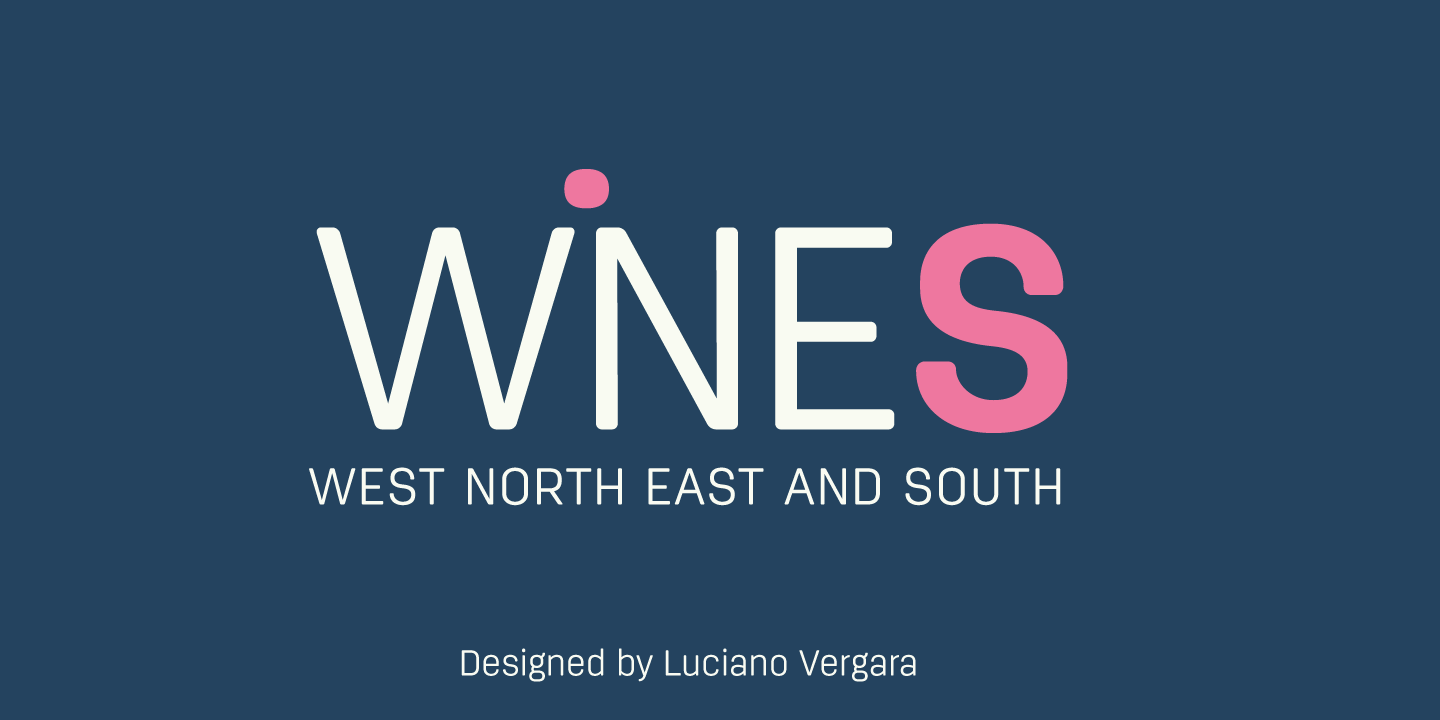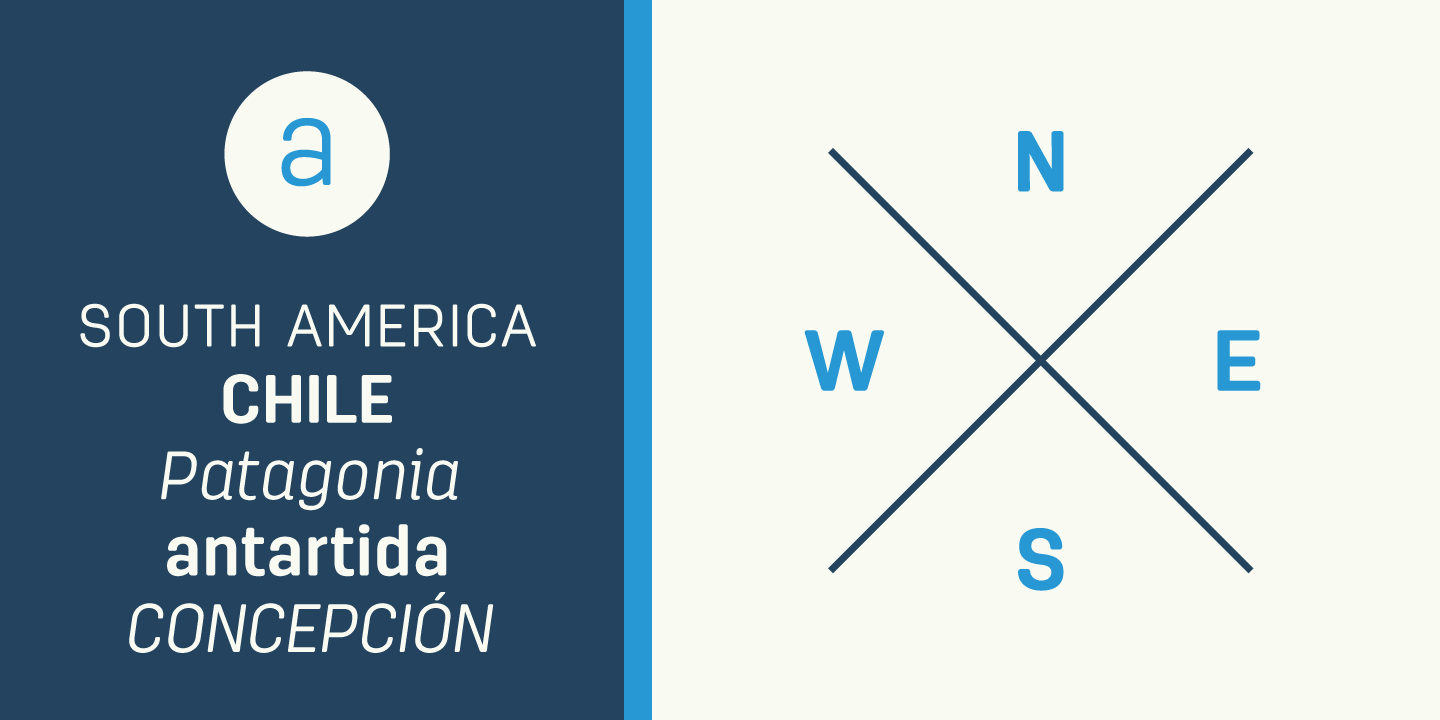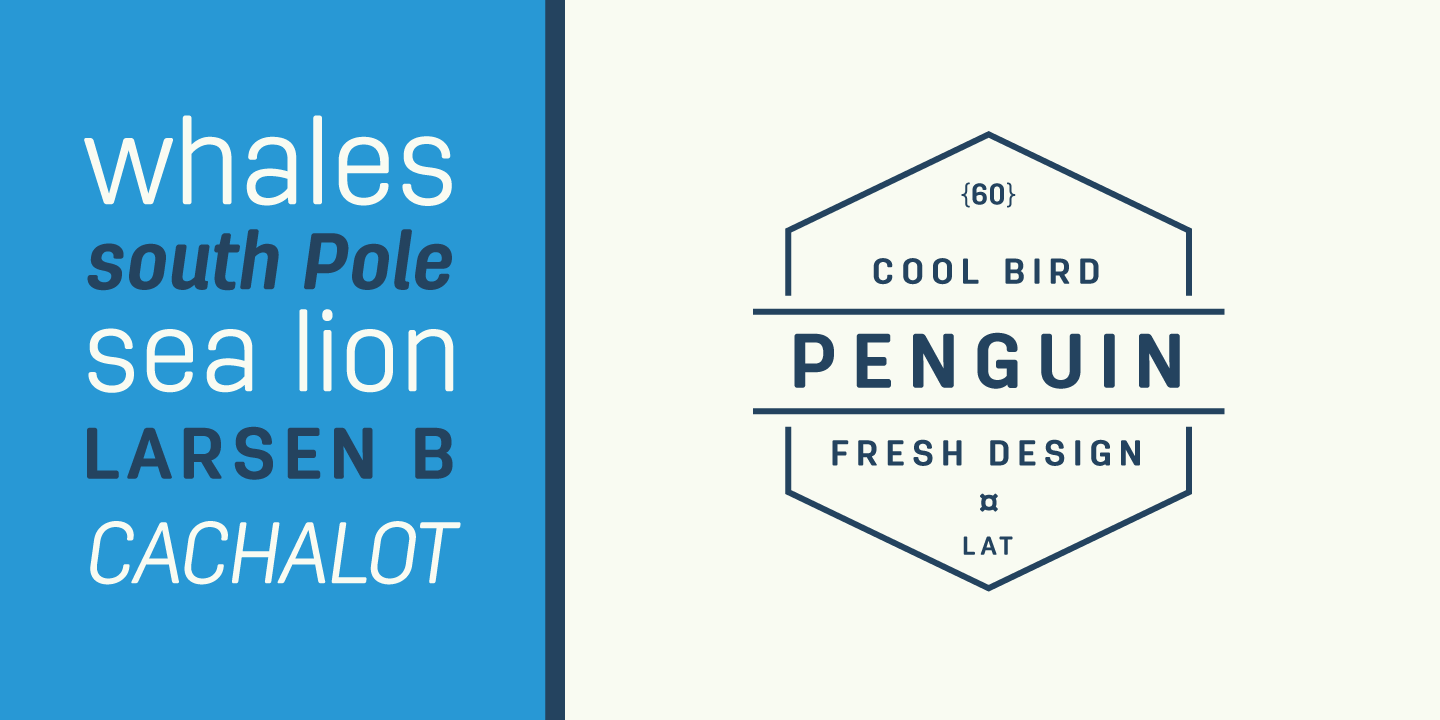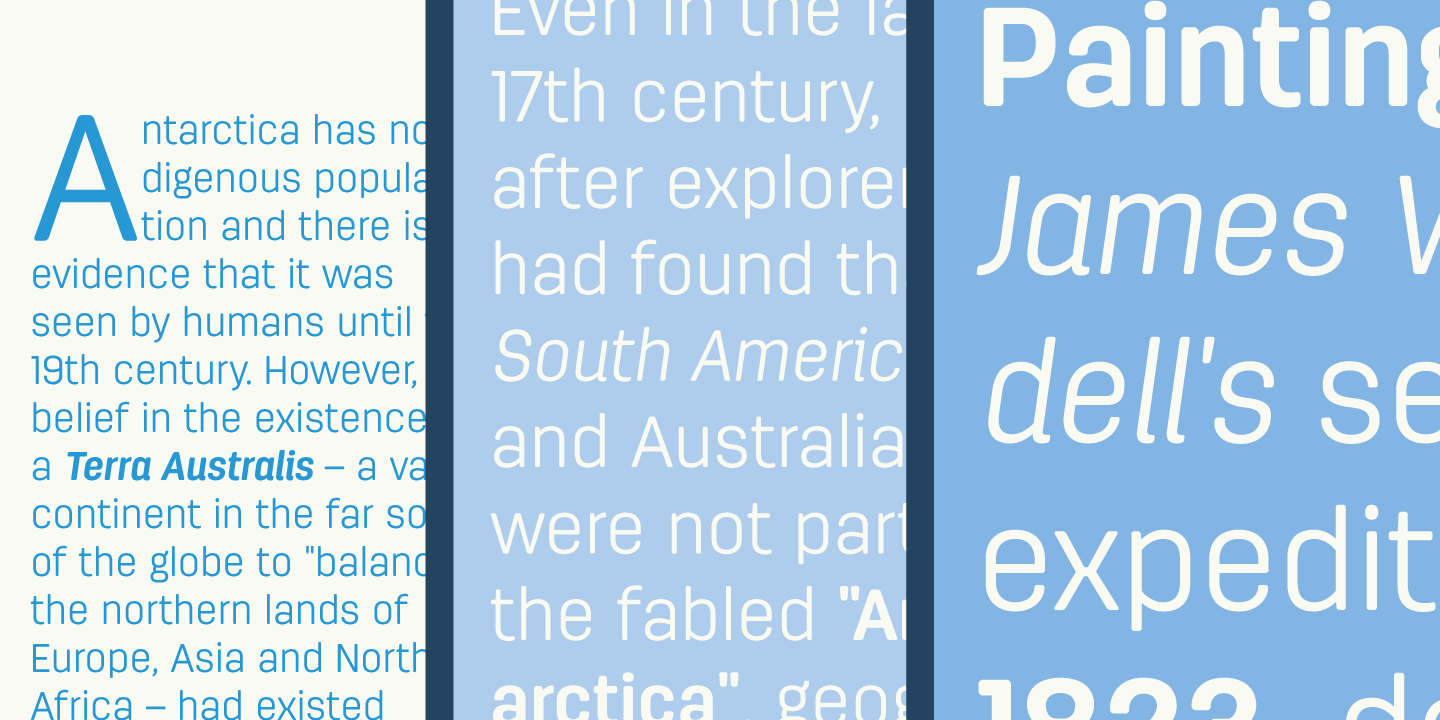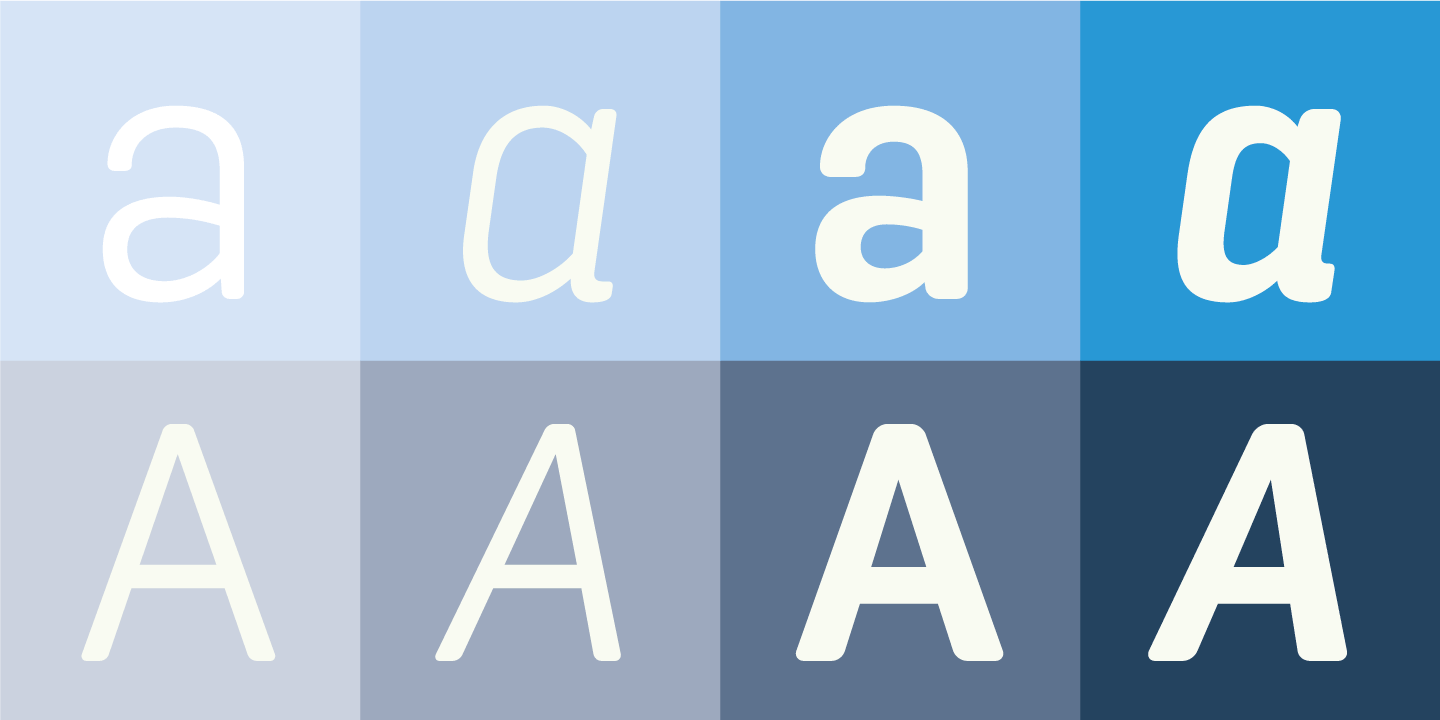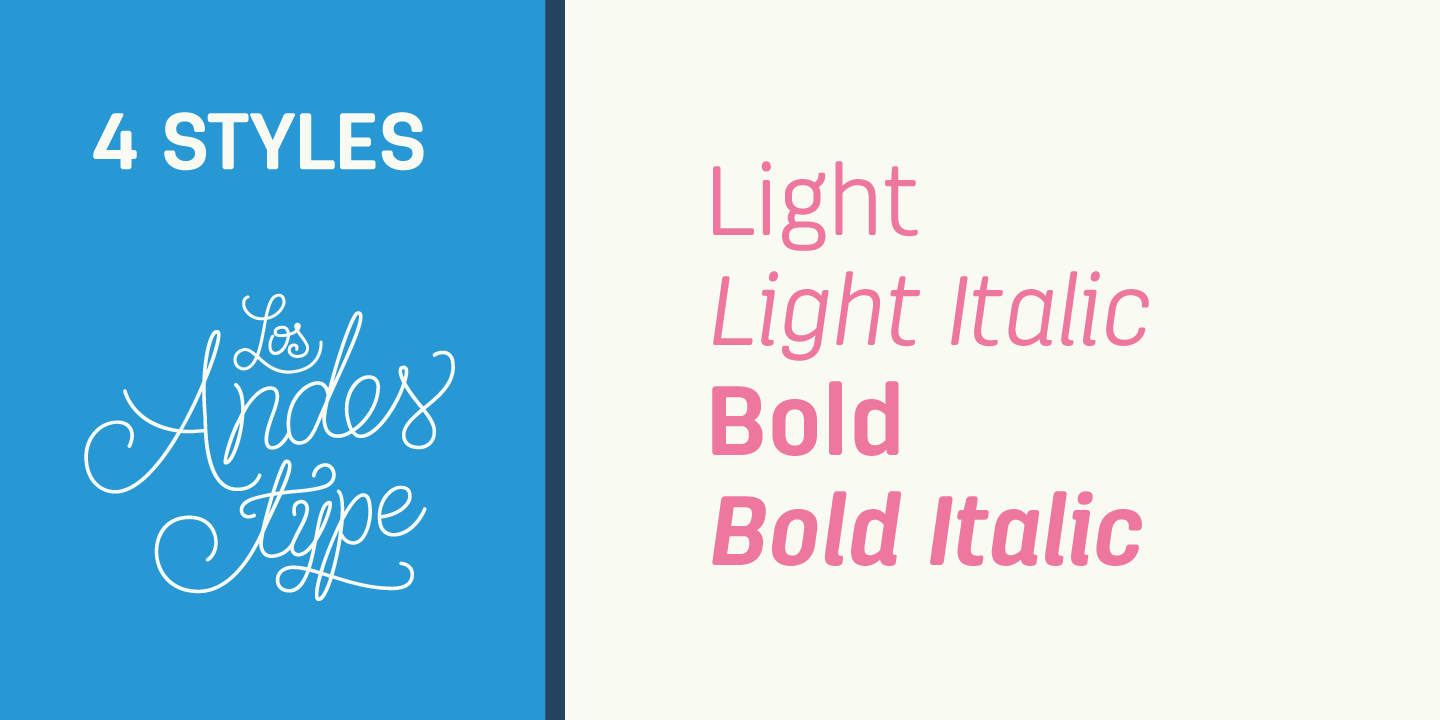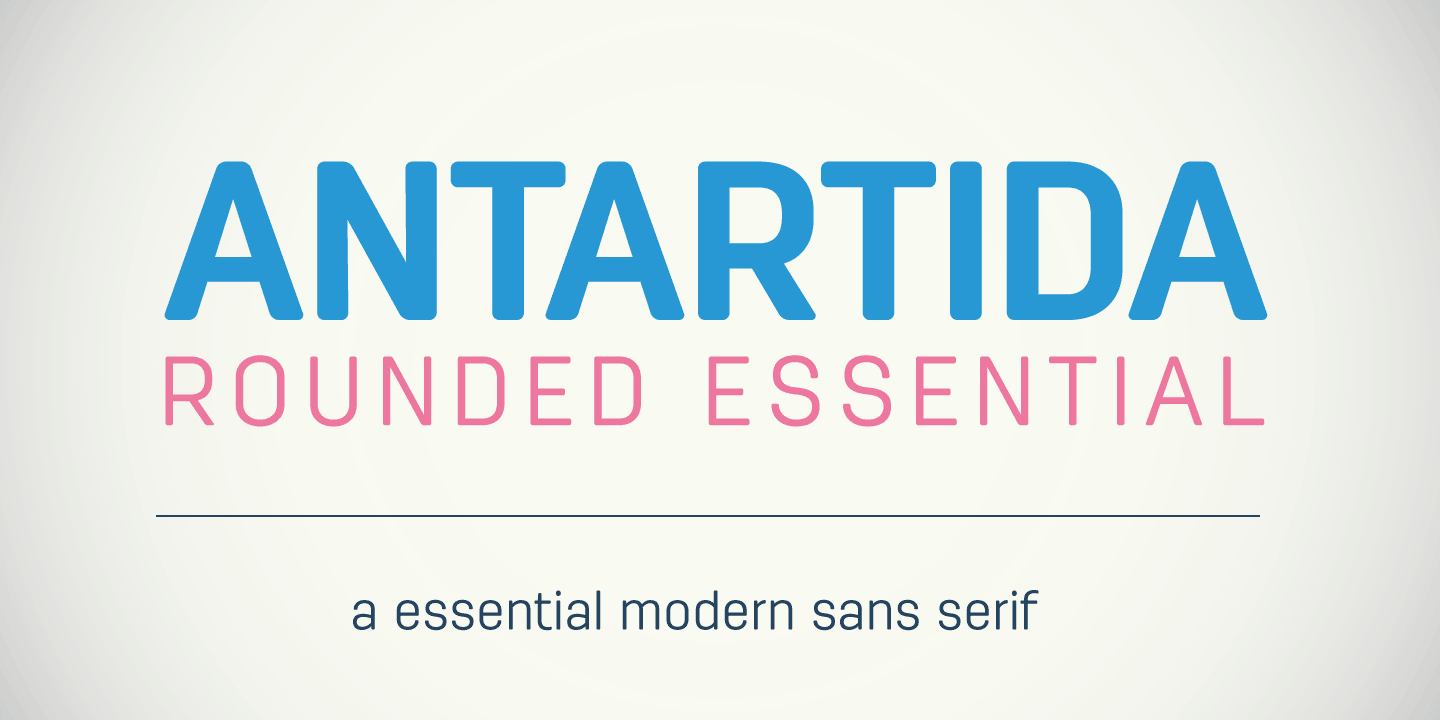
Antartida Rounded is a sans serif with rounded terminals, its simple, kind of neutral feeling, is functional, clean and minimal, rounded terminals make it friendly and warm. Is a family of 8 fonts, weights 4 and in italics. This font contains glyphs that help emphasize alternate text or headlines.
Ligatures, Alternates, Contextual Alternates